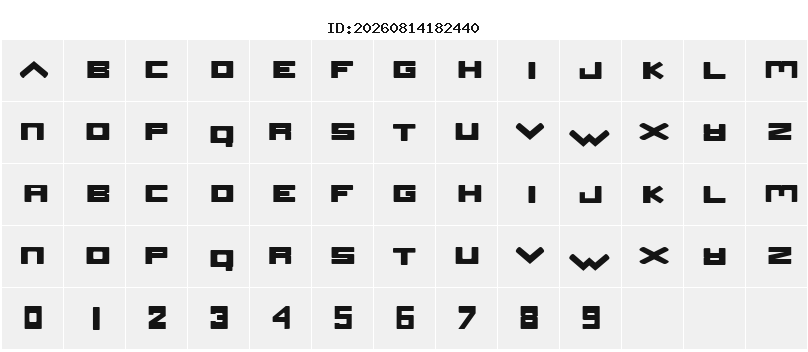
• Font Name: Stereo Saturn
• Full Font Name: Stereo Saturn
About Stereo Saturn.ttf
Stereo Saturn.ttf is a modern, elegant sans-serif font designed for ultimate readability and visual harmony. Perfect for branding, headlines, web design, and print materials.